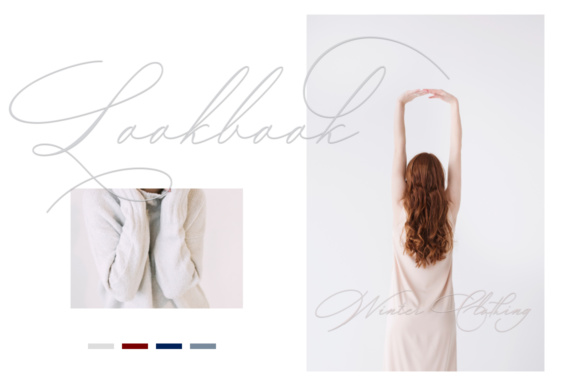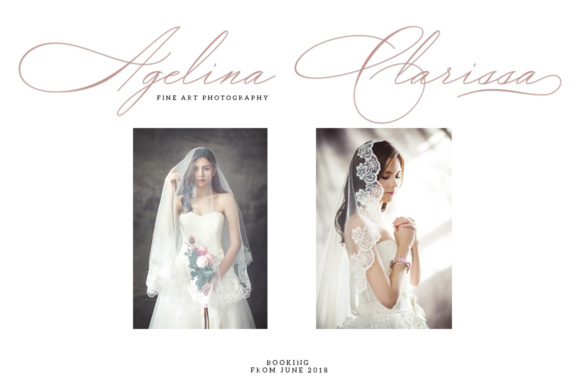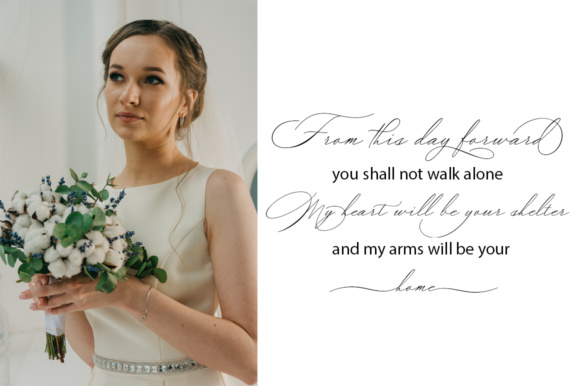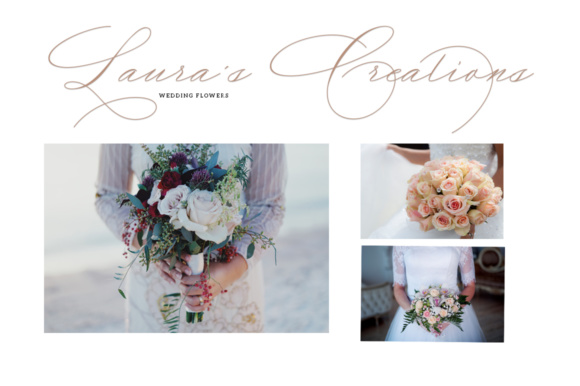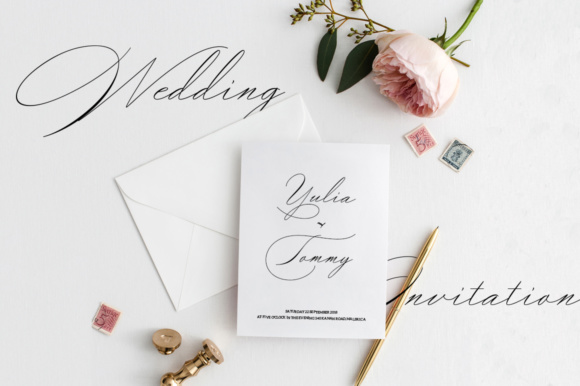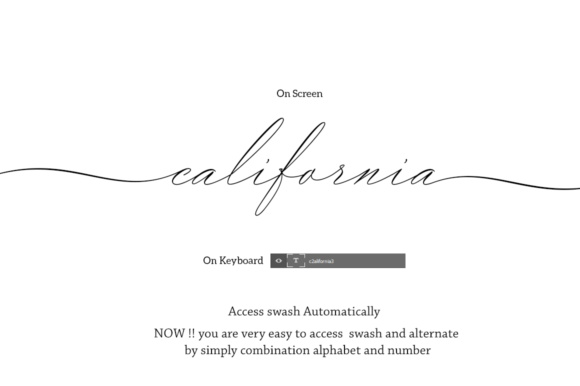
Amelia Giovani Font
About Amelia Giovani Font
The Amelia Giovani is a modern calligraphy font with classic, sophisticated accents. It is perfect for branding, wedding invites and cards.